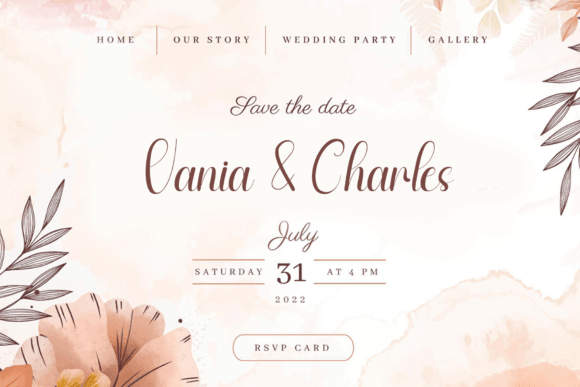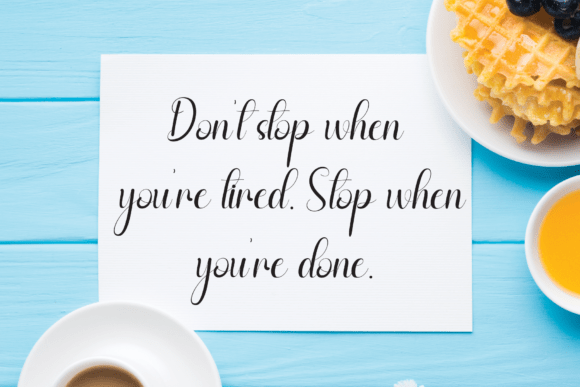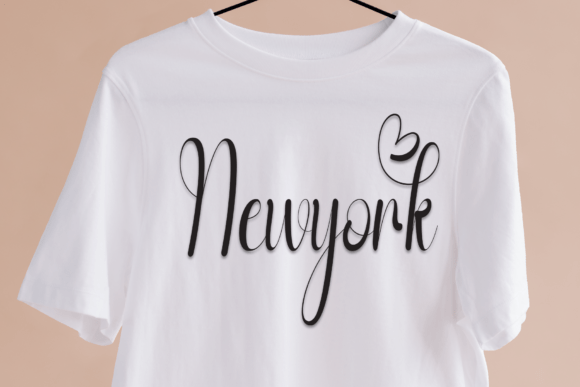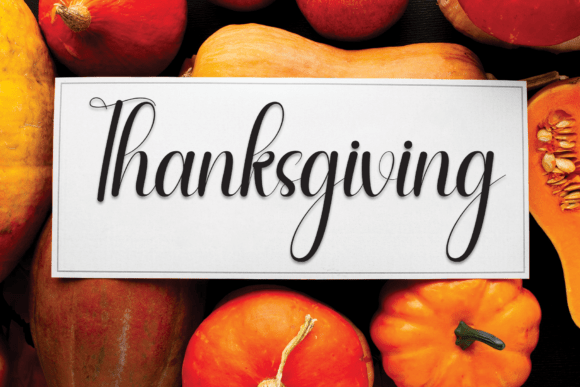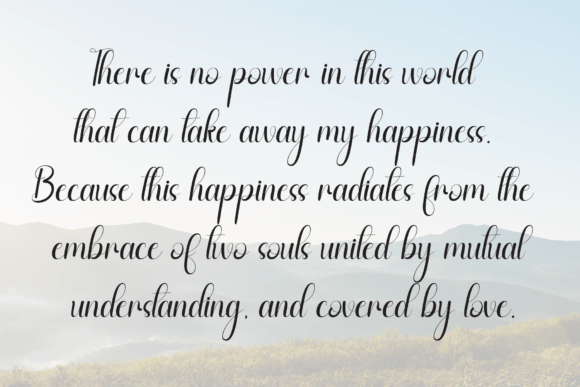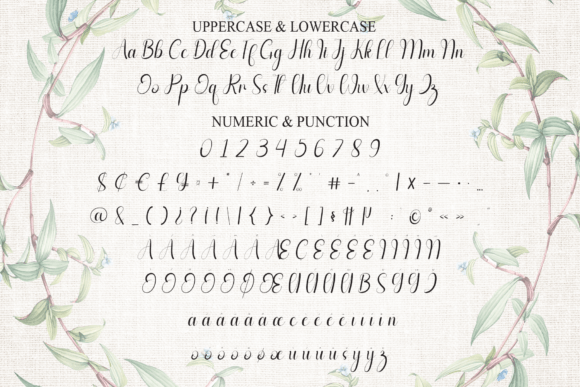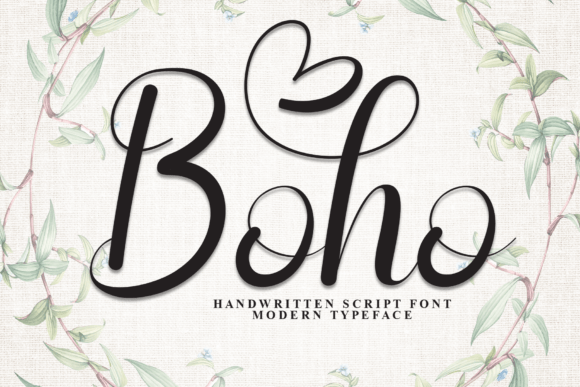
The Boho Font: Elevate Your Designs with Elegance and Charm
I’ll never forget the moment I stumbled upon the Boho font. I was working on a branding project for a luxury wedding planner, and I was struggling to find the perfect font that exuded elegance and sophistication. The client wanted something that would make her invitations and stationery stand out, but still convey a sense of refinement and poise. That’s when I discovered Boho, a stylish handwritten script font that instantly captured the essence of what I was looking for.
A Personal Review: What I Love About Boho
Boho is more than just a font – it’s a design statement. Here are some things I love about it:
• ✨ Fluid, graceful strokes that add a touch of elegance to any design
• ✅ Smooth curves and natural flow create a timeless, refined look
• Perfect for branding, invitations, and stationery, adding a personal and sophisticated touch
• Works beautifully in both digital and print formats
While Boho is an amazing font, there are a few things to keep in mind:
• ⚠️ May not be suitable for very small font sizes, as some details may get lost
• 🤔 Limited availability of certain characters or glyphs, but this can be worked around with OpenType features
A Practical Guide to Using Boho in Your Designs
One of the best things about Boho is its OpenType features and glyphs. These allow you to add more variety and creativity to your designs. Some of the features you can explore include:
Feature Description
Stylistic Alternates Swap out certain characters for alternative designs
Glyphs Access additional characters, such as ligatures and ornaments
Ligatures Combine certain character pairs for a more elegant look
Boho was inspired by the bohemian lifestyle and the beauty of handwritten scripts. The designer wanted to create a font that captured the essence of elegance and sophistication, while still being approachable and personal. The result is a font that is both refined and charming.
Q: What is Boho font?
A: Boho is a stylish handwritten script font that exudes elegance and charm.
Q: What can I use Boho for?
A: Boho is perfect for branding, invitations, stationery, and any design project that requires a touch of elegance and sophistication.
Q: Is Boho suitable for body text?
A: While Boho is beautiful, it’s best suited for headings and titles. For body text, consider using a serif font like Lora.